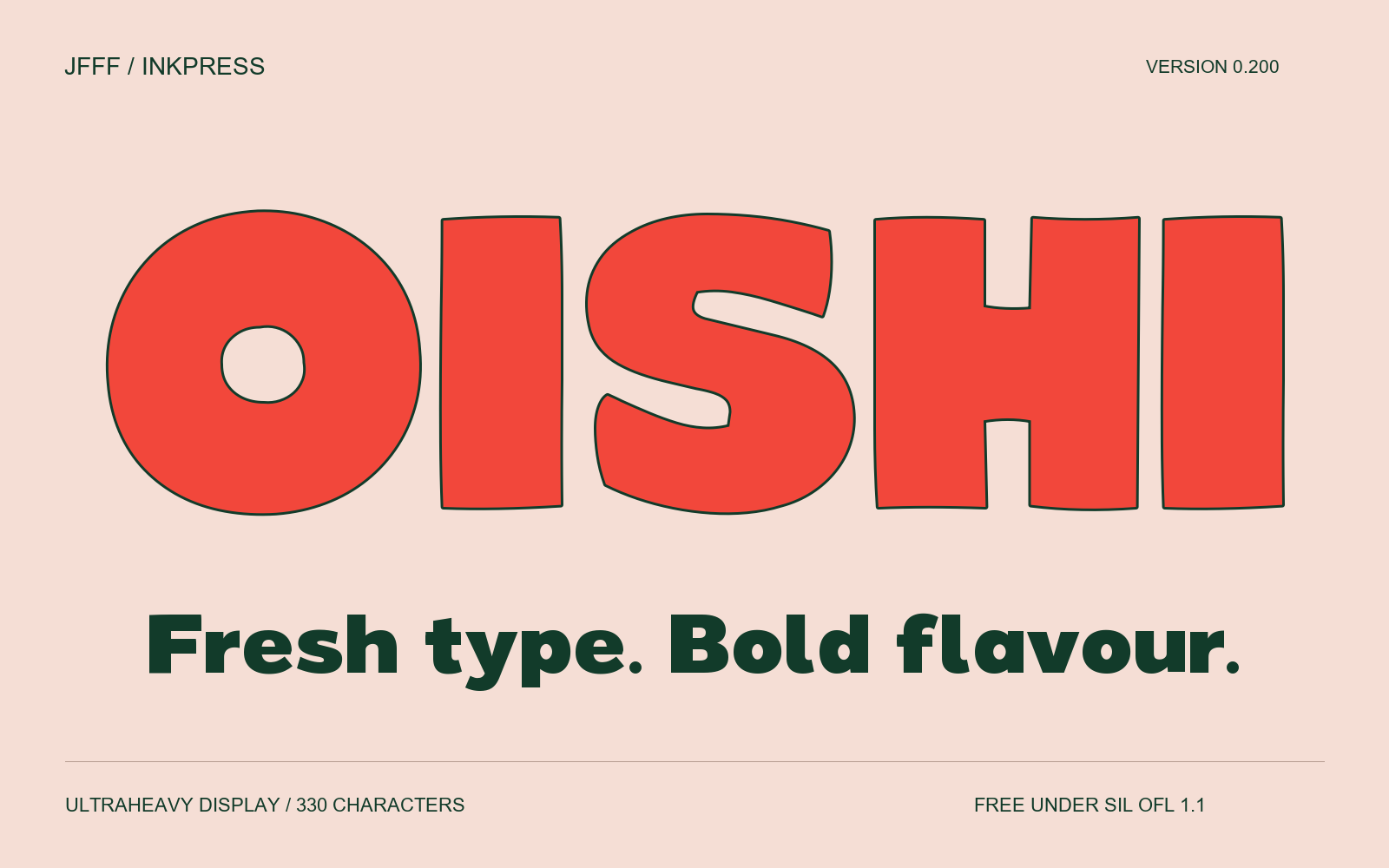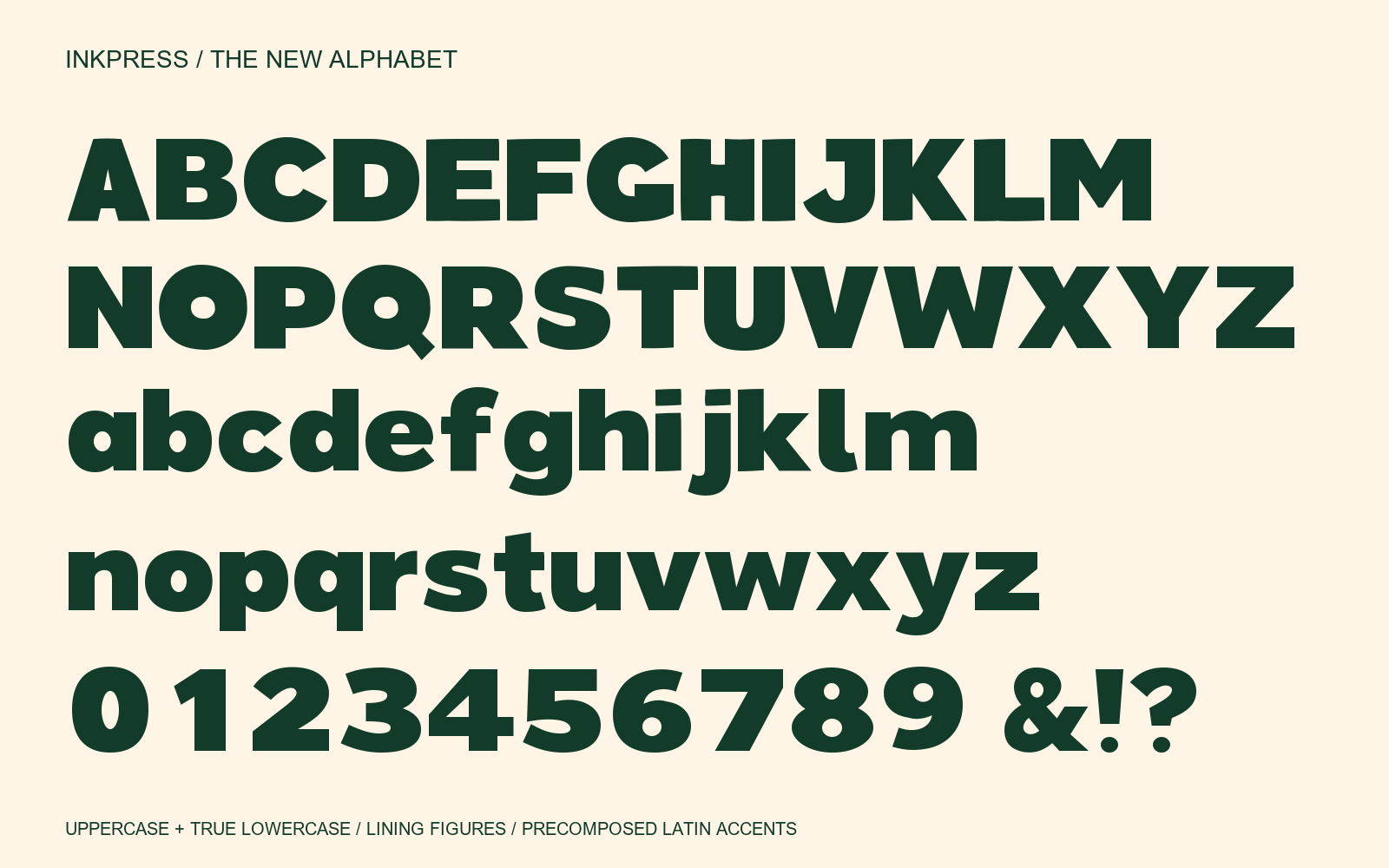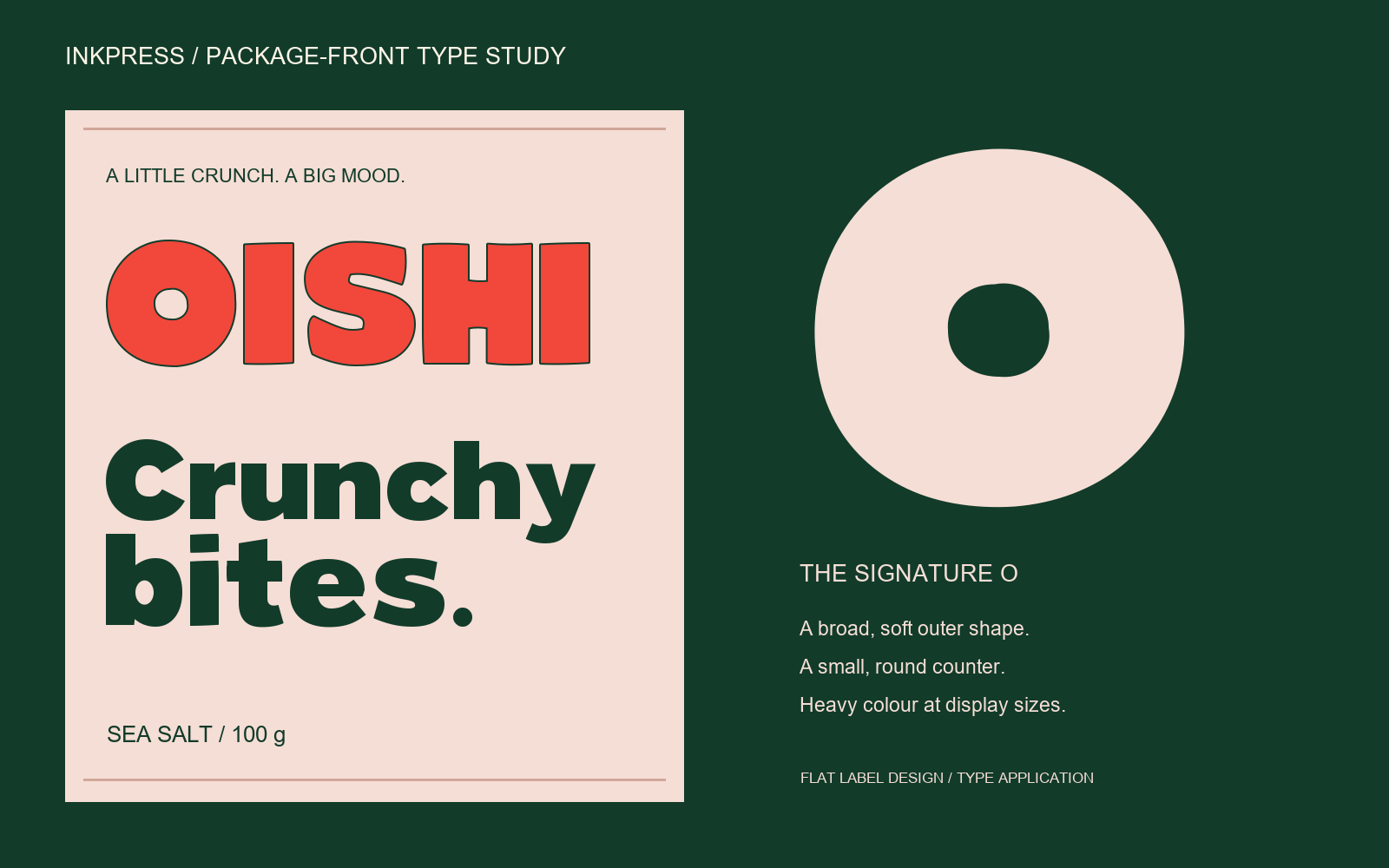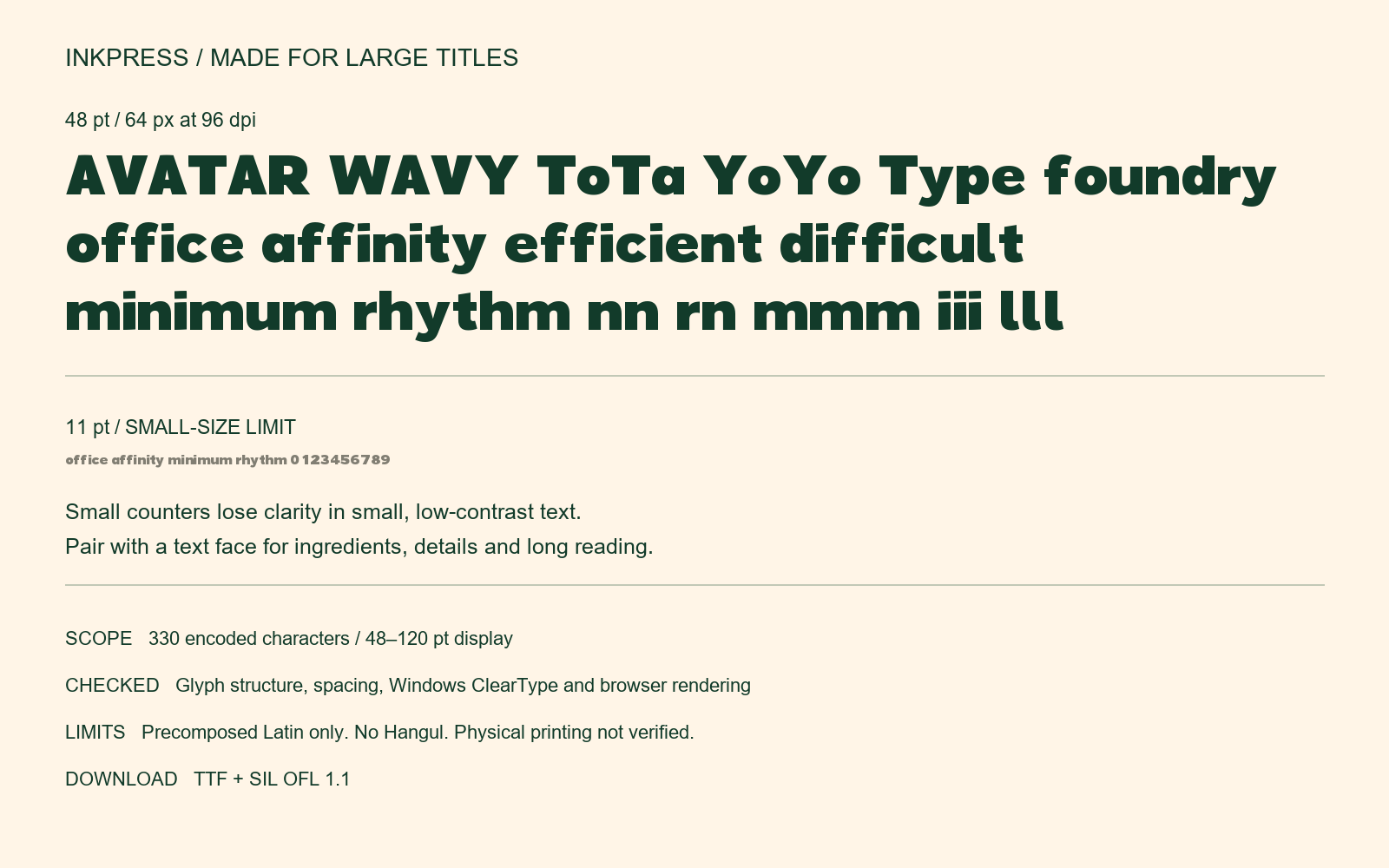
Free distressed block font
JFFF Inkpress 0.200. Broad red OISHI lettering with dark green edges, followed by genuine lowercase on pale pink.
JFFF Inkpress is an ultraheavy display font with broad round shapes, small counters and gently irregular block edges. Version 0.200 redraws the family from the OISHI lettering reference and adds genuine lowercase, lining numerals and rebuilt punctuation. 330 encoded characters, including spaces: Basic Latin, Latin-1 Supplement, Latin Extended-A and 11 additional symbols. Designed for 48–120 pt headlines on packaging and posters. Use a text face for body copy and small labels. Latin accents use precomposed characters; Hangul and independent combining marks are not included. Windows ClearType, browser rendering, glyph structure and spacing were checked. Physical printing and other editing apps have not been verified. The font is monochrome; specimen colours and edge effects are artwork treatments. Download includes TTF and SIL OFL 1.1. Free for personal and commercial use under the license terms.